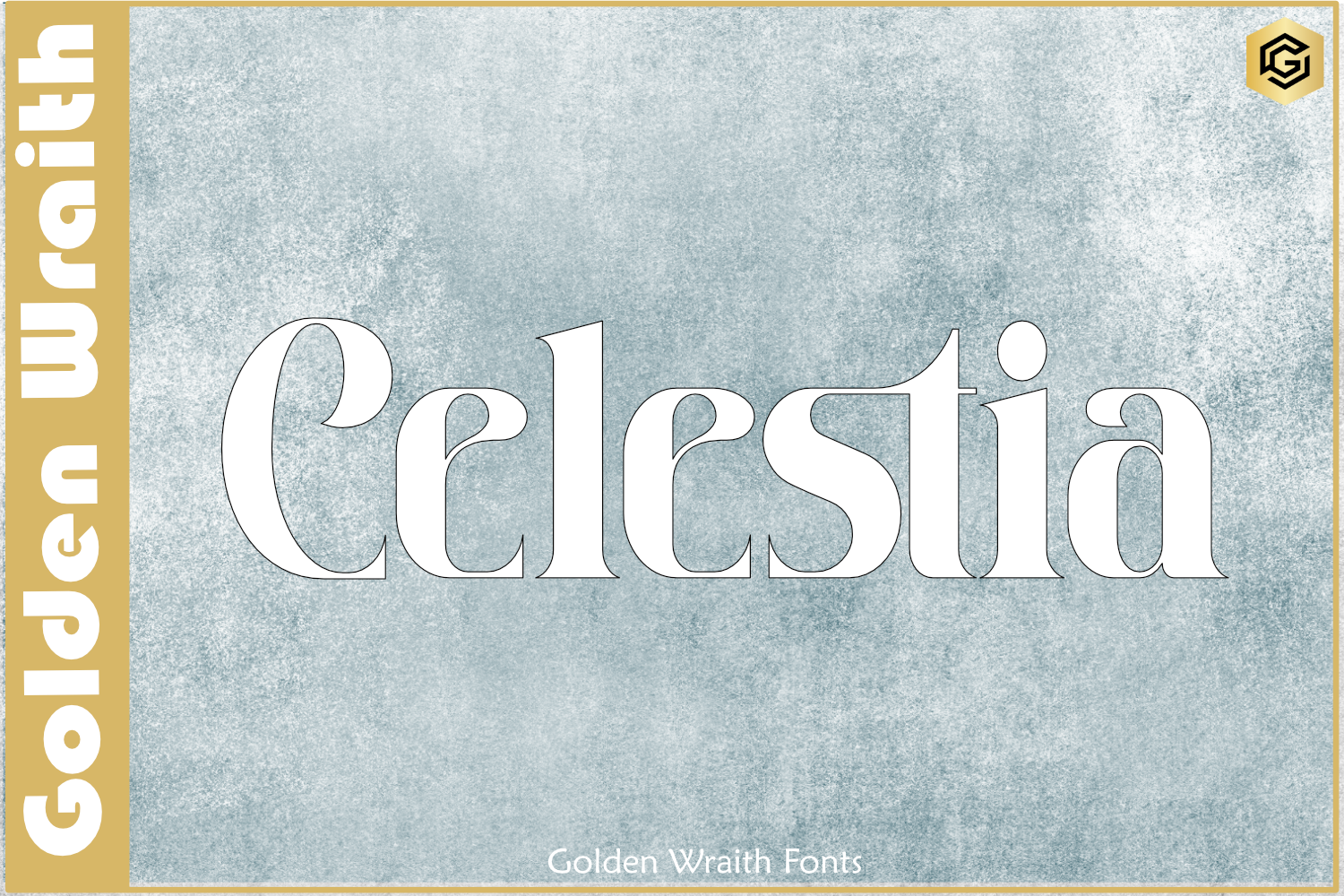
Celestia Font
Celestia is a celestial and captivating serif font that exudes timeless charm and elegance. Its gracefully tapered serifs and ethereal letterforms create a harmonious and refined appeal, perfect for sophisticated projects. With its celestial allure, “Celestia” adds a touch of enchantment to your designs, leaving a mesmerizing impression on your audience.